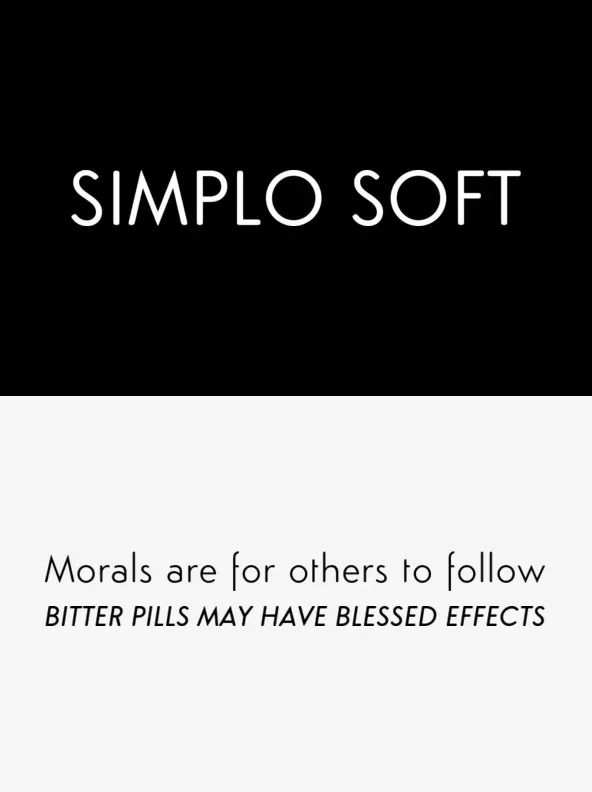
Simplo Soft — Geometry, with a Gentle Edge
Simplo Soft is the soft companion of Simplo. Simplo’s original sharp geometrics have been tempered by the moderate rounding of the character edges, creating a friendlier geometric typeface with a calm, confident tone. It reads cleanly at display sizes, where the softened corners bring a welcoming feel to headlines, posters, and brand touchpoints.
Despite its display-forward character, Simplo Soft remains quite legible in text. It suits graphic design and corporate identity design, where consistency and clarity matter across print and digital systems. Simplo Soft includes sixteen styles, extensive language support, eight different kinds of figures, and sophisticated OpenType features—ready for advanced typographic projects. Designed by Ben Blom in 2012.